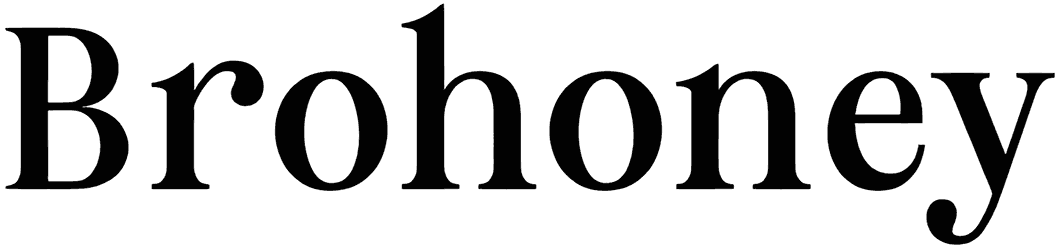
Brohoney Font
Beauty always comes with simplicity. If you have the same idea, then we would like to offer you a magical masterpiece, the same as the Brohoney font. This artwork can boost a vibe of classic, loyal, luxury, and trust in your creative ideas.
We strongly recommend you multiply the efficiency of your logotypes, business cards, social media posts, the cover of fashion magazines, or wedding cards by utilizing this A-Z serif font.